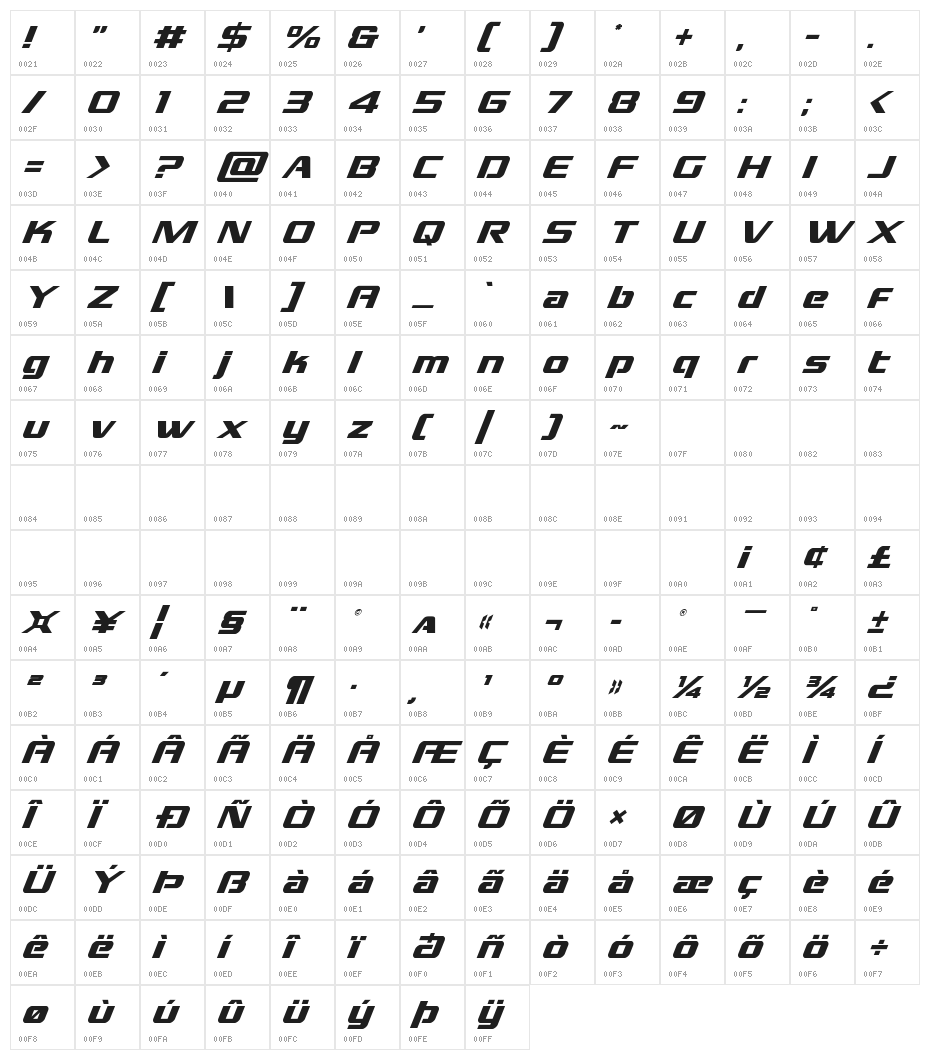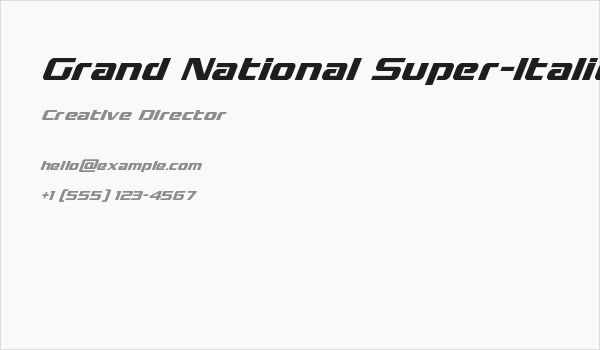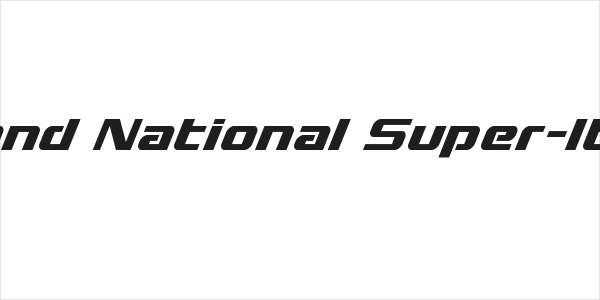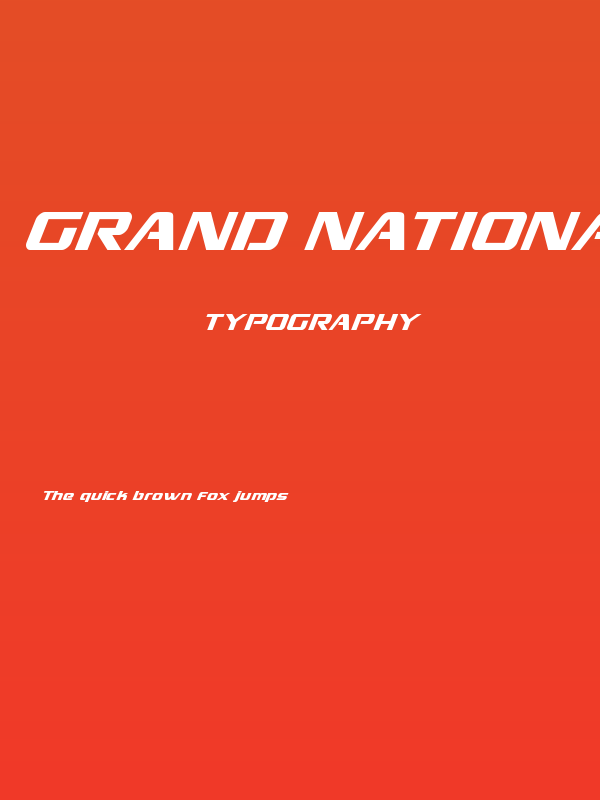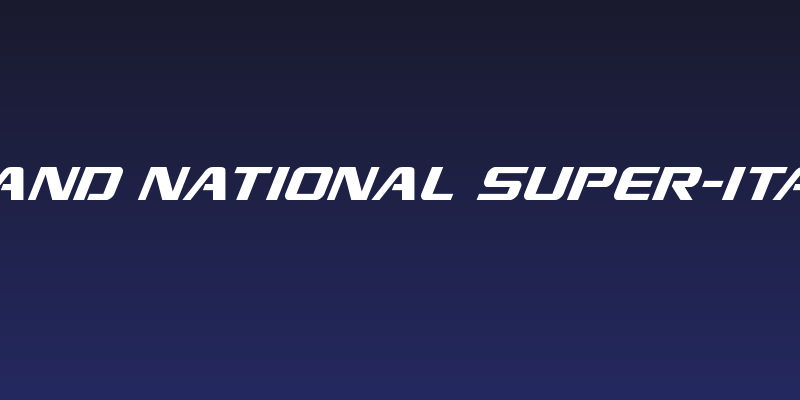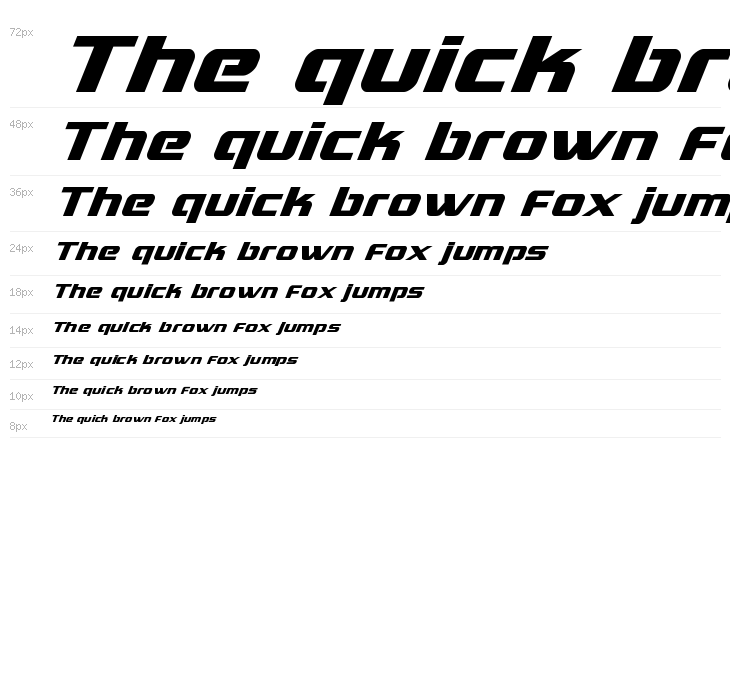
Grand National Super-Italic Font
Grand National Super-Italic Description
This font exhibits a dynamic and modern style with a pronounced italic slant, giving it a sense of motion and speed. The characters are bold and angular, featuring sharp edges and a geometric structure that enhances its contemporary appeal. The uppercase and lowercase letters maintain a consistent design, while the numerals and special characters integrate seamlessly with the overall aesthetic. The font's strong presence makes it suitable for attention-grabbing headlines and impactful designs.
| Proposed Projects | Ideal for sports branding, automotive designs, dynamic posters, and modern digital interfaces. |